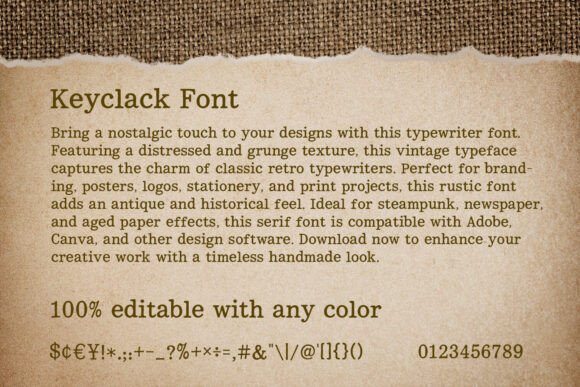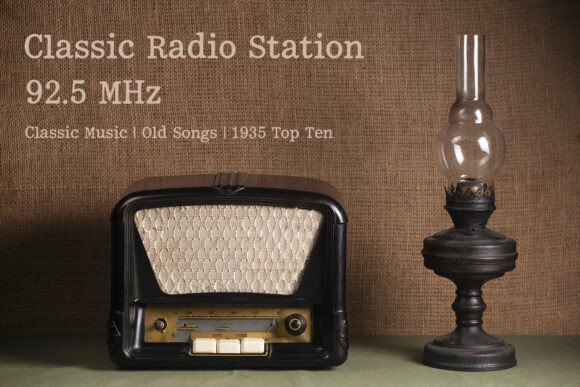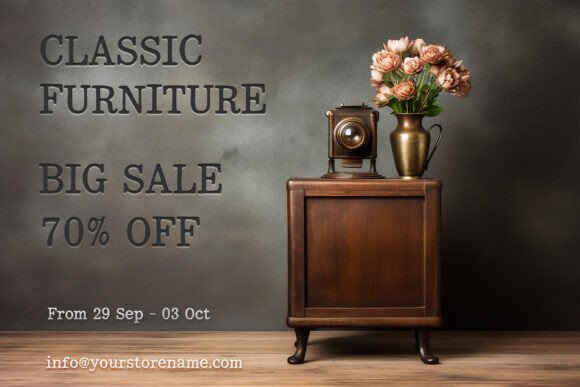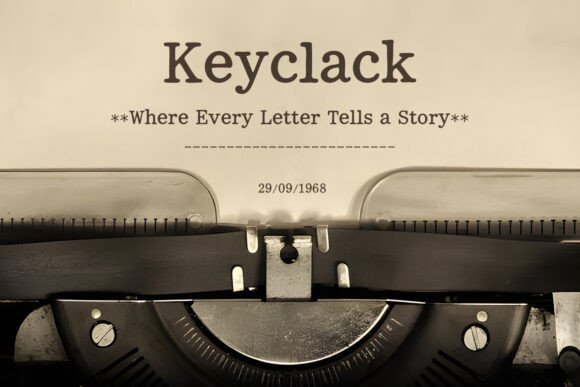
Introduction to Keyclack Font
Keyclack is a vintage typewriter-style font that brings the iconic sound and feel of old-school typing into your digital designs.
With its monospaced structure, bold serifs, and slightly distressed ink texture, Keyclack captures the charm of classic typebars with modern usability It includes uppercase and lowercase letters, numbers, punctuation, currency symbols, and special characters — making it perfect for retro posters, editorial layouts, branding, book titles, and nostalgic print effects.